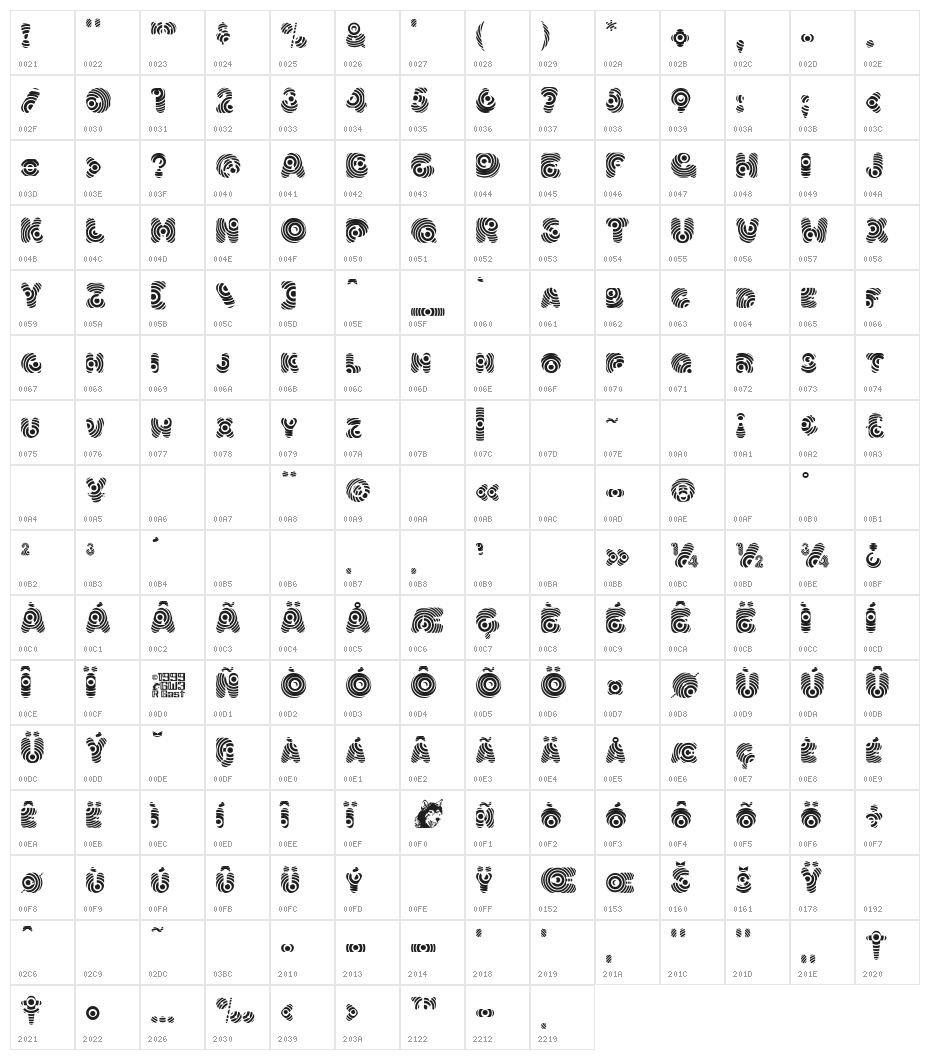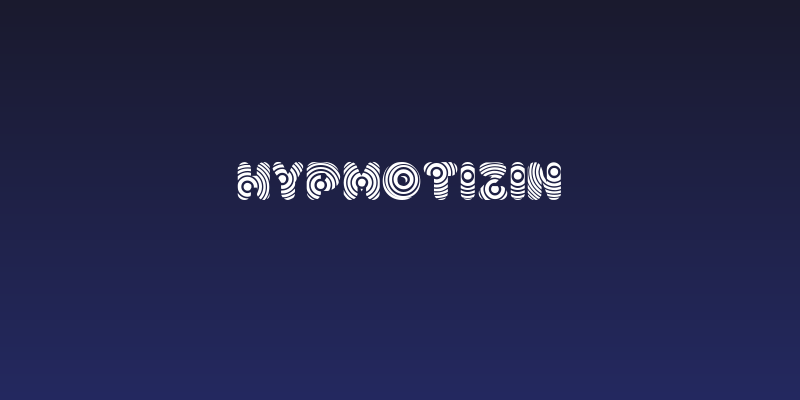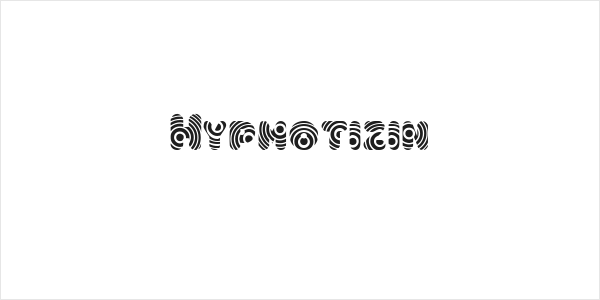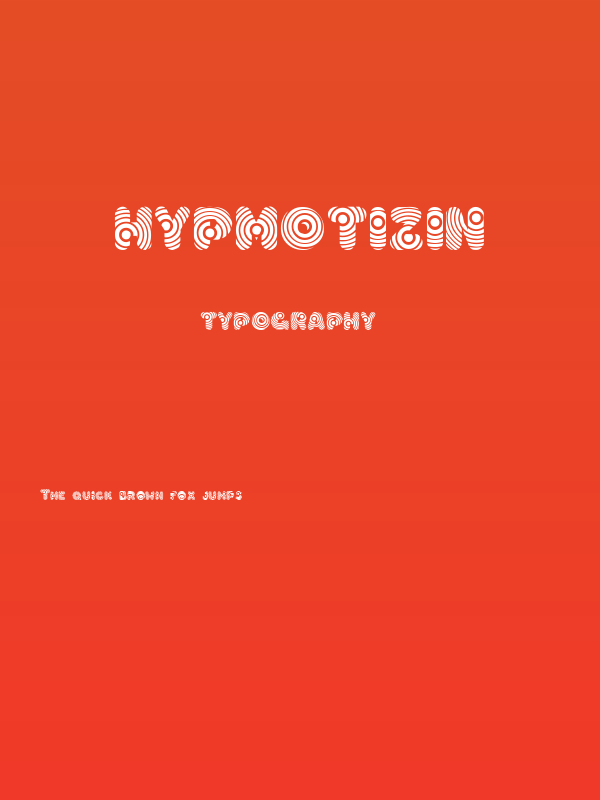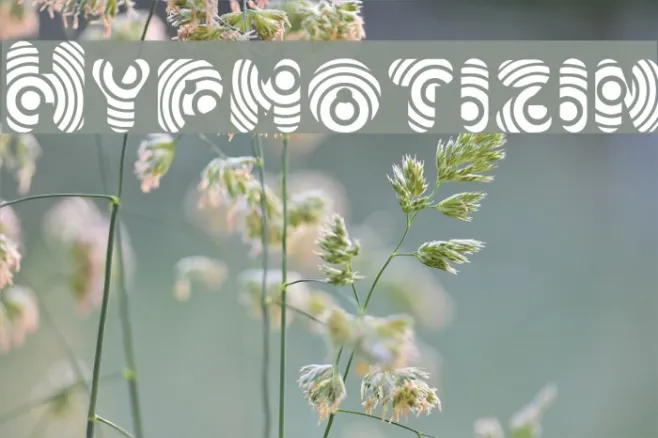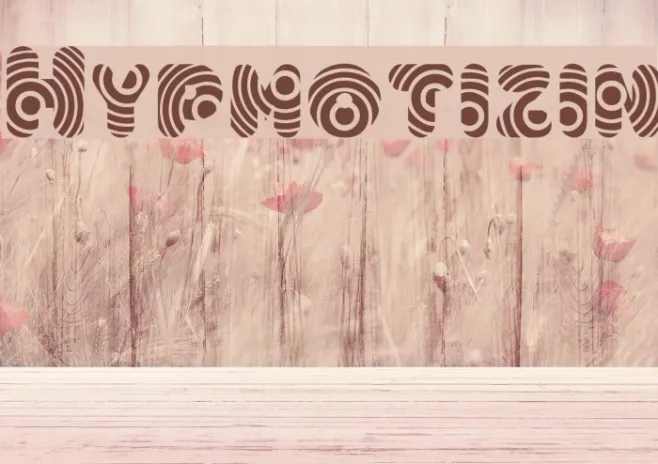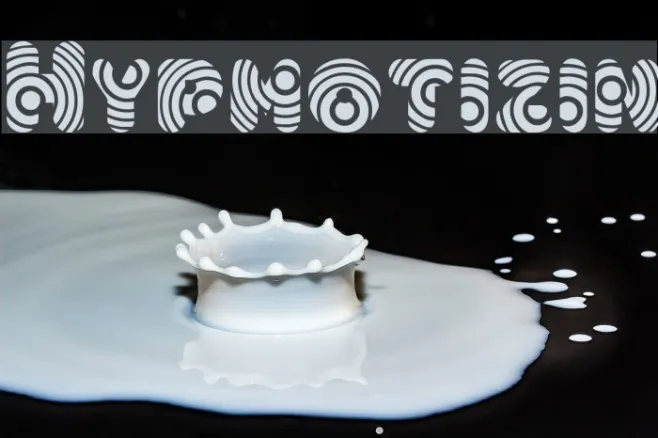
Hypmotizin Font
Hypmotizin Description
This font features a bold, hypnotic design with concentric circular patterns forming each character. The letters and numbers are crafted with a series of thick, swirling lines that create a sense of movement and depth. The unique style is both eye-catching and playful, making it ideal for creative projects. The characters maintain a consistent width, giving the font a balanced and cohesive appearance. The special characters are designed with the same swirling motif, ensuring a uniform look across all elements.
| Proposed Projects | Ideal for posters, album covers, event flyers, and any project requiring a bold, artistic touch. |